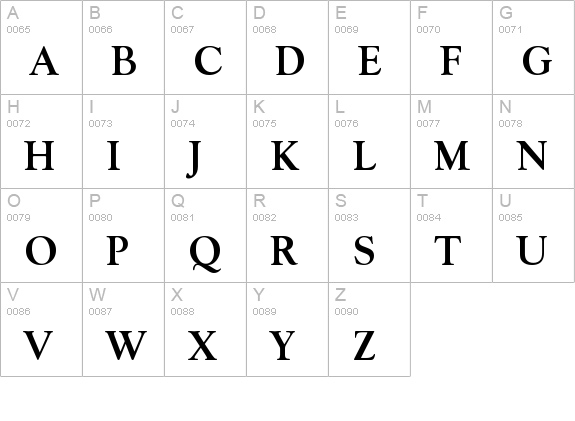
GoudySerial-Bold is a strong, high-contrast variant in the GoudySerial typeface family \xE2\x80\x94 well suited to headlines, attention-grabbing titles, and strong calls-to-action.
GoudySerial-Bold font is a bold and striking typeface that exudes elegance and sophistication. With its strong, confident lines and classic design, this font is perfect for making a bold statement in any project. Whether you're creating a poster, logo, or headline, GoudySerial-Bold font will grab your audience's attention and leave a lasting impression. The best part? GoudySerial-Bold font is available for free download at FontsMarket.com. That's right, you can add this stylish and versatile font to your collection without any cost. Don't miss out on the opportunity to enhance your designs with the timeless beauty of GoudySerial-Bold font. Download it today and unleash your creativity!